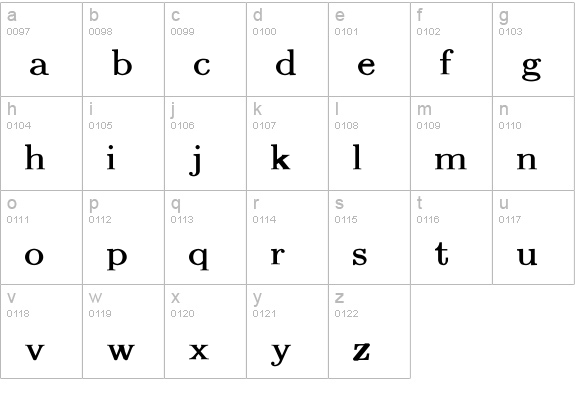
CM_Fibonacci Regular Font Details
CM_Fibonacci Regular is the standard, neutral variant in the CM_Fibonacci typeface family \xE2\x80\x94 well suited to general body text, paragraphs, and standard typographic work.
CM_Fibonacci Regular font is a versatile and elegant typeface that combines classic design with a modern twist. Perfect for a wide range of design projects, this font exudes sophistication and style. The clean lines and balanced proportions make it easy to read, while the subtle details add a touch of personality. Best of all, CM_Fibonacci Regular font is available for free download at FontsMarket.com. Whether you're working on a website, logo, or printed materials, this font will elevate your design and help you stand out from the crowd. Don't miss out on this opportunity to enhance your projects with this beautiful and timeless typeface.